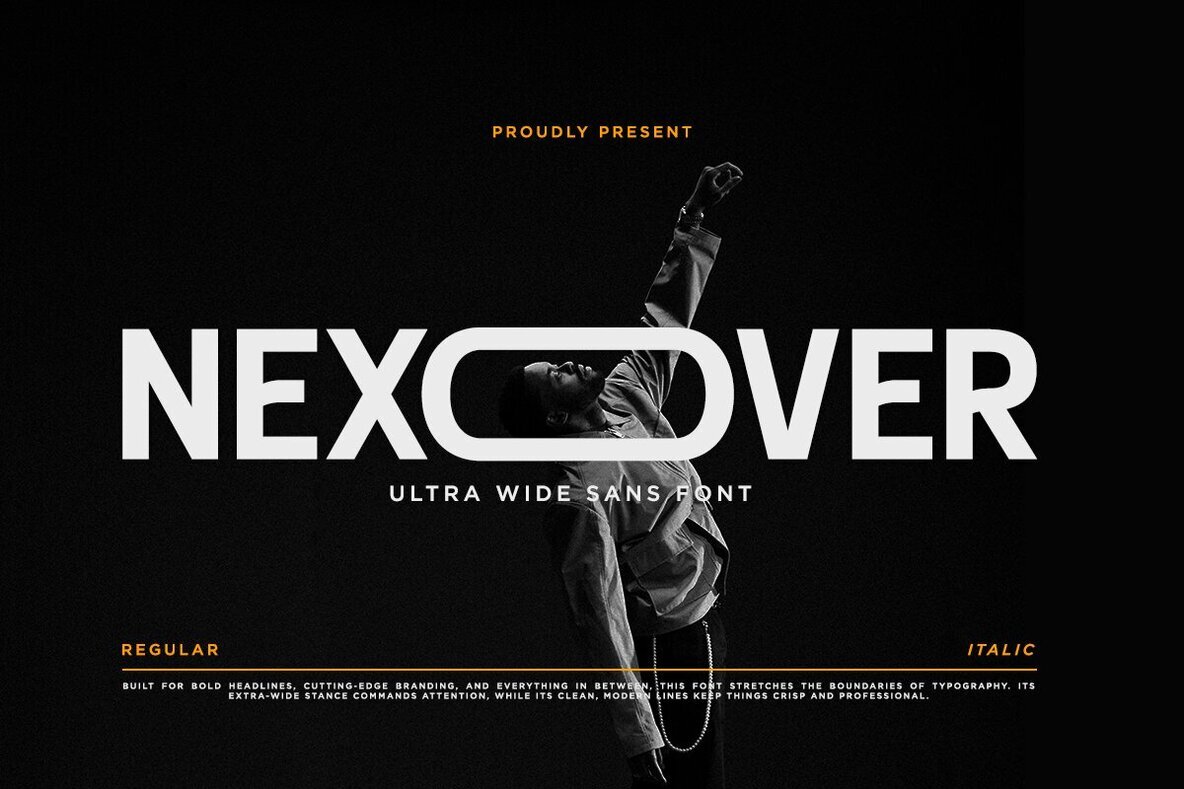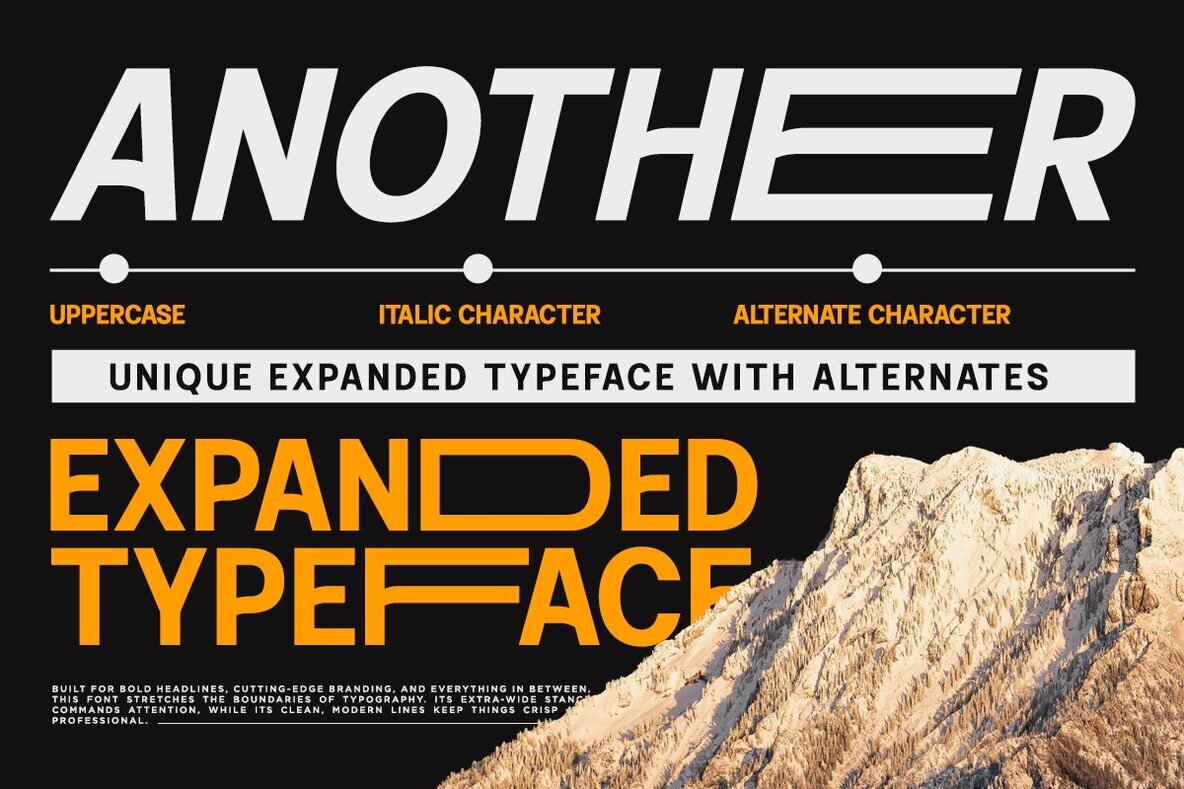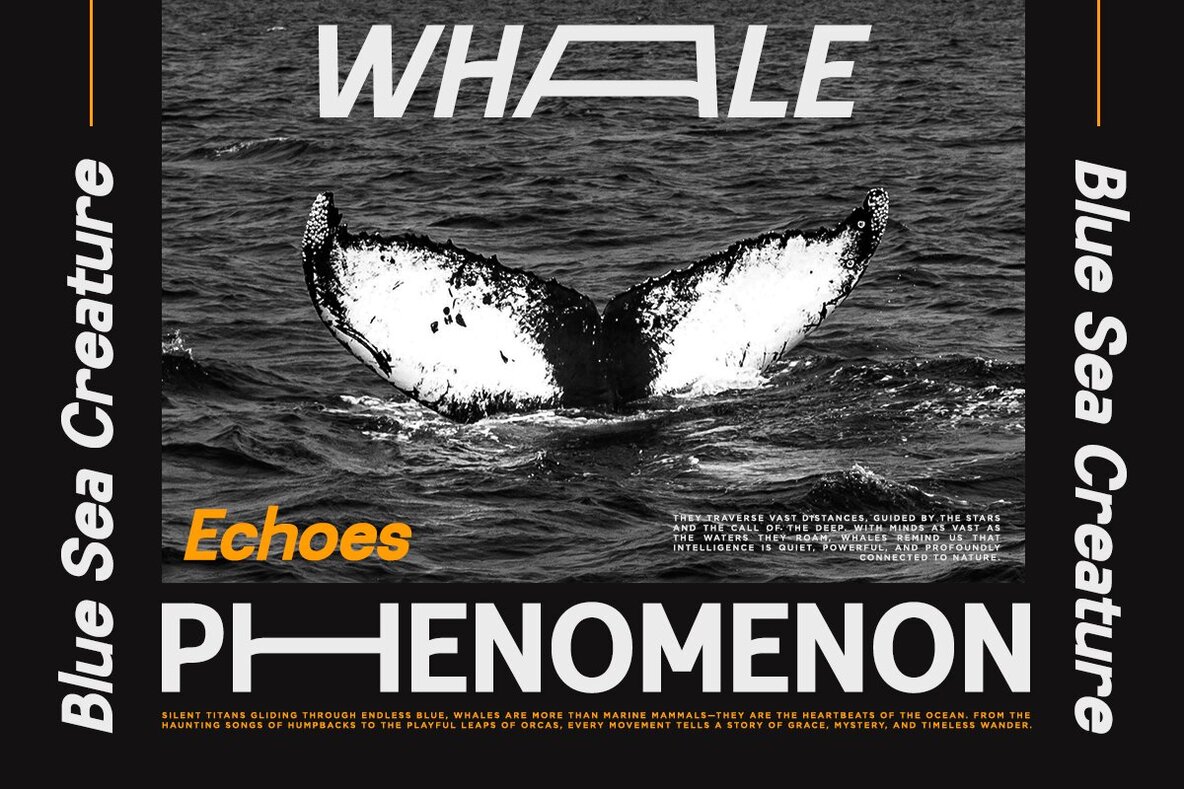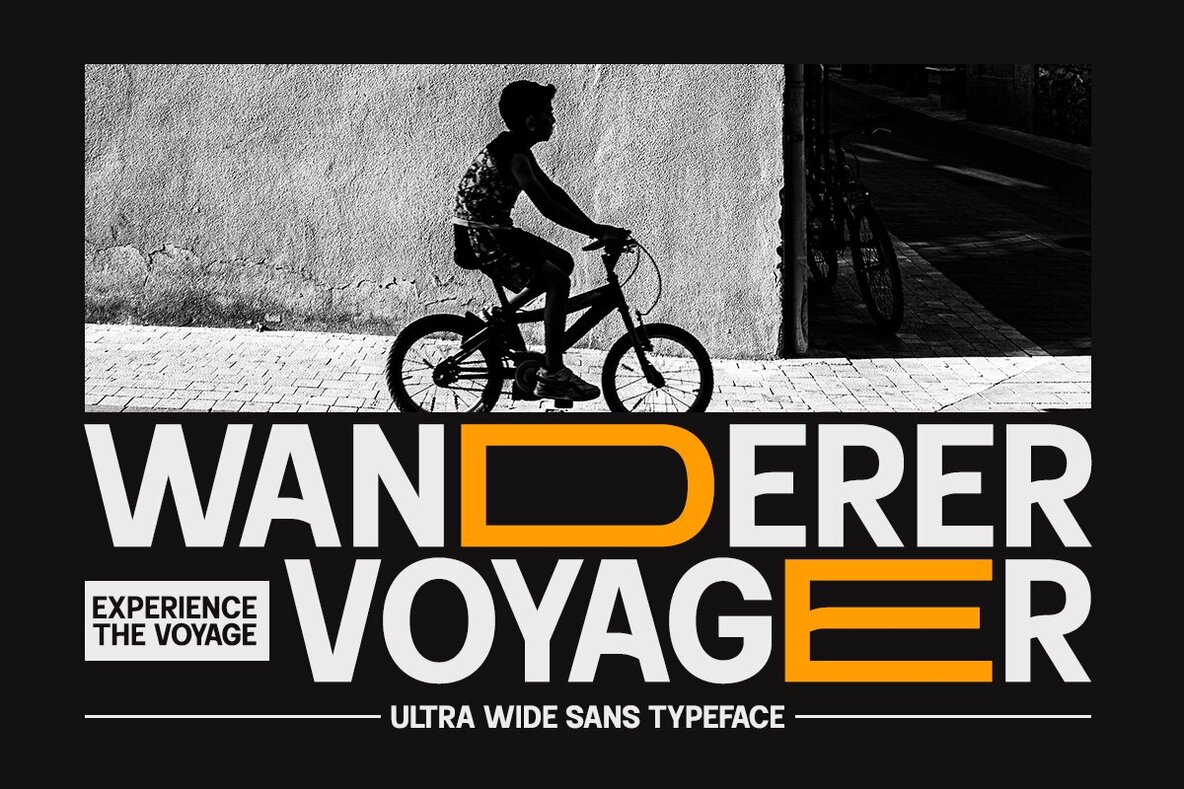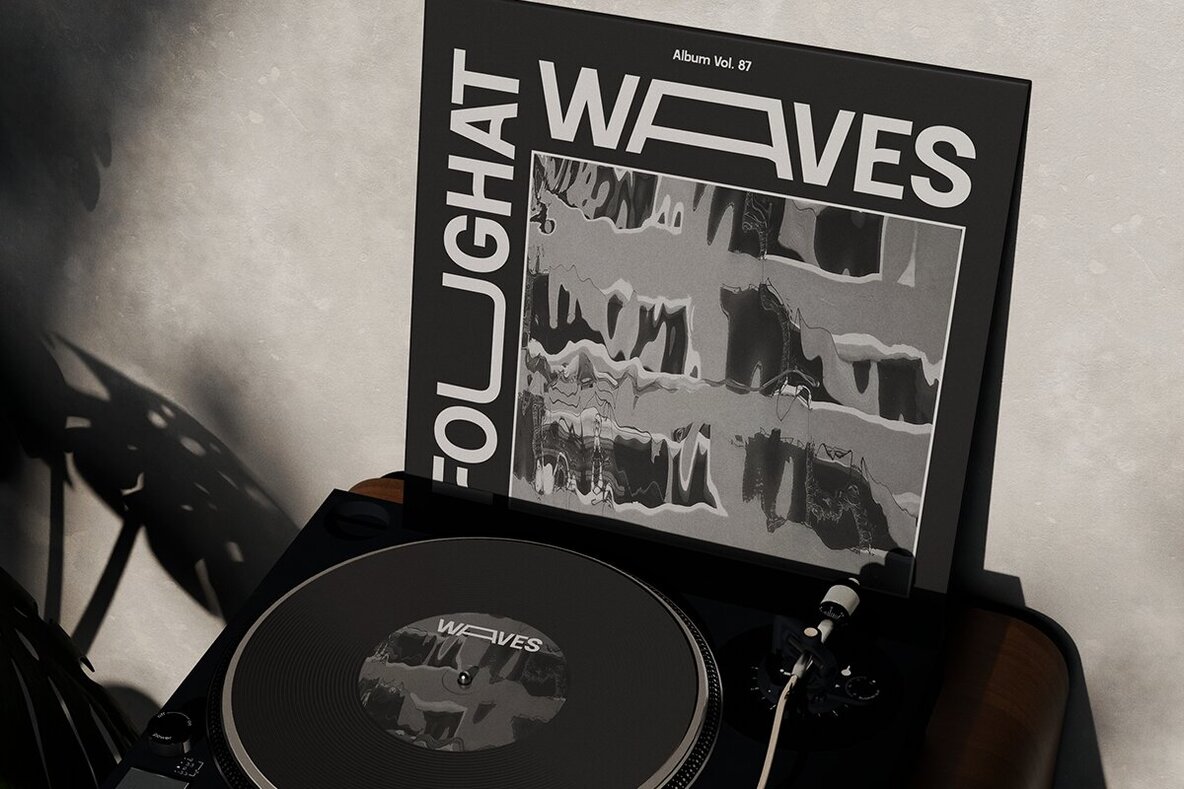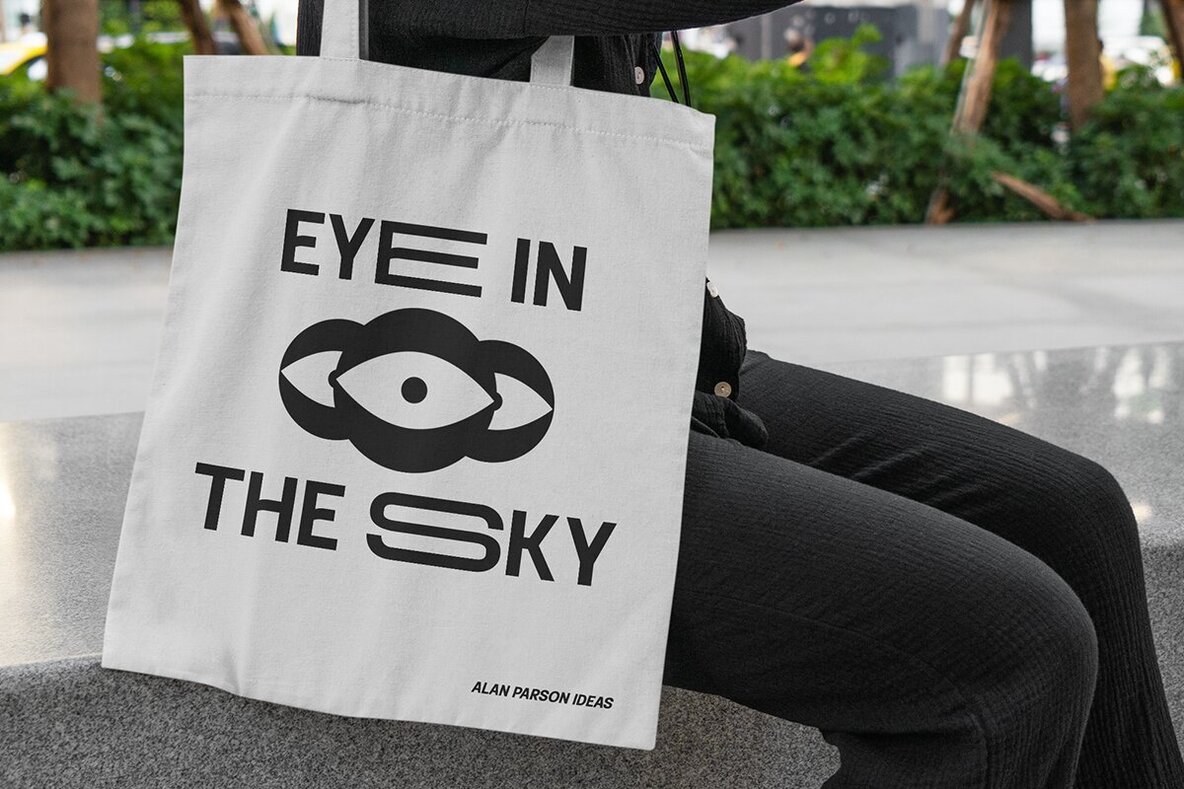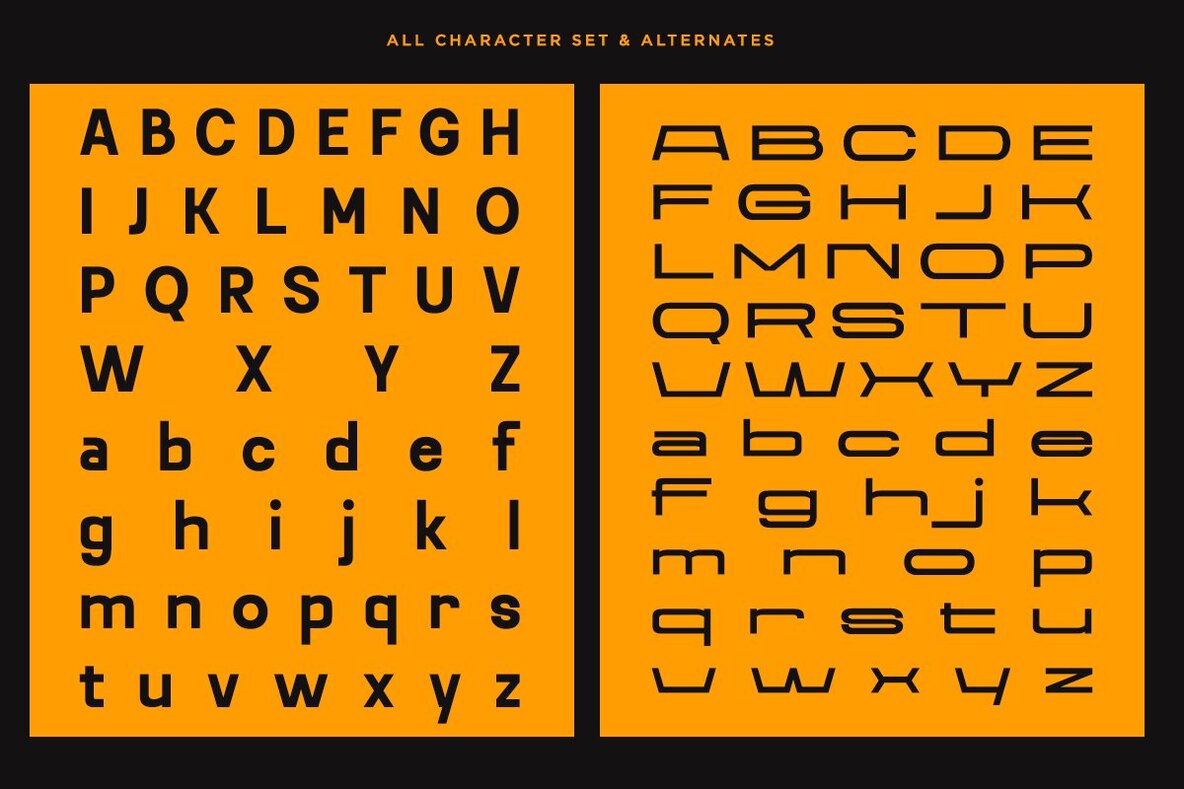
Nexover Font
Nexover is an ultra-wide sans-serif typeface designed with clean lines and geometric shapes, offering a contemporary and futuristic appeal. This font draws attention without overwhelming the design, making it an ideal choice for eye-catching posters, memorable headlines, and premium branding projects. Its unique alternate characters introduce flexibility and a distinctive edge that adapts to modern editorial layouts or digital applications. Perfect for branding, logos, websites, social media graphics, and editorial headlines, Nexover’s clarity ensures your message stands out in any context. Balanced uppercase and lowercase characters, paired with multilingual accents and extensive punctuation options, make this typeface versatile for global projects and diverse creative needs.Nexover Ultra-Wide Sans-Serif Typeface